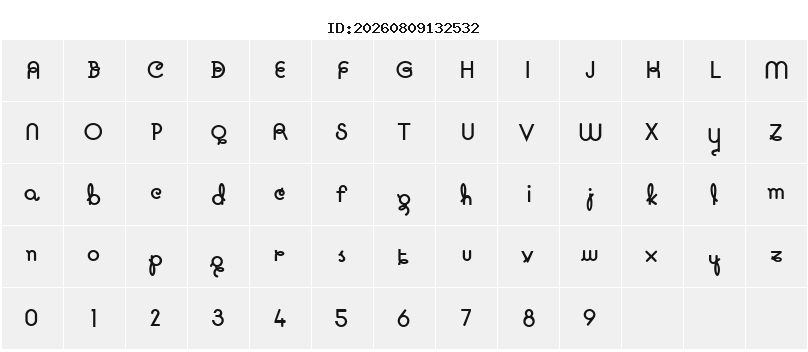
• Font Name: Pavadee
• Font Style: SemiBold
• Full Font Name: Pavadee SemiBold
• PostScript Name: Pavadee-SemiBold
• Designer: Tom Tor
• Manufacturer: TomTorStudio & Design LLC (TTS)
About Pavadee.ttf
Pavadee.ttf is a modern, elegant sans-serif font designed for ultimate readability and visual harmony. Perfect for branding, headlines, web design, and print materials.